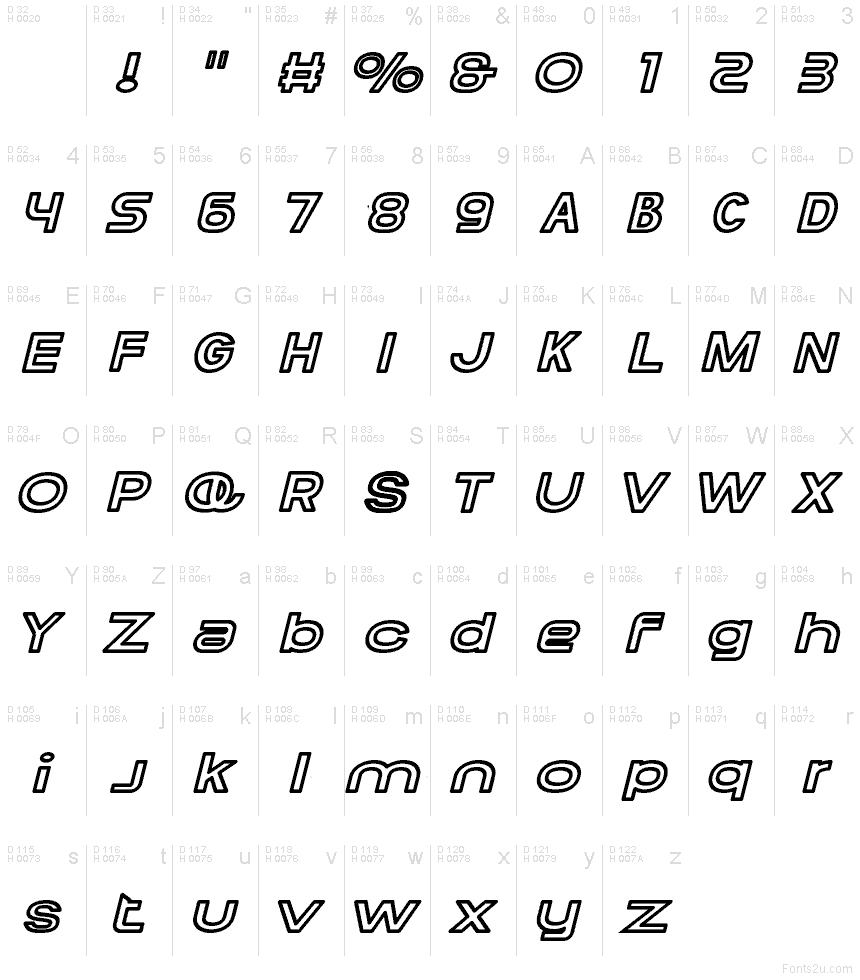
PQRMonday Italic
PQRMonday Italic font by Ffeeaarr is a free display font known for its futuristic and high-tech aesthetic. The outlined expanded letters and geometric shapes give it a decorative enhanced appearance, making its visual appealing in contemporary applications.